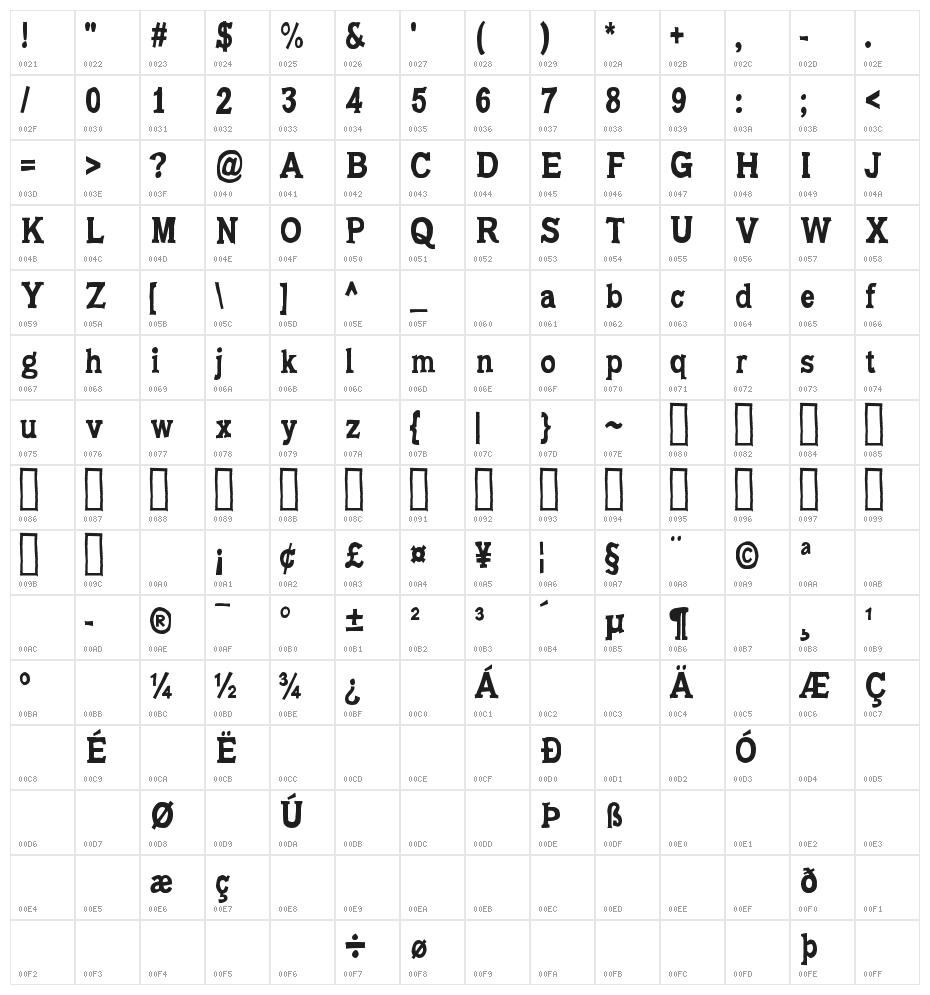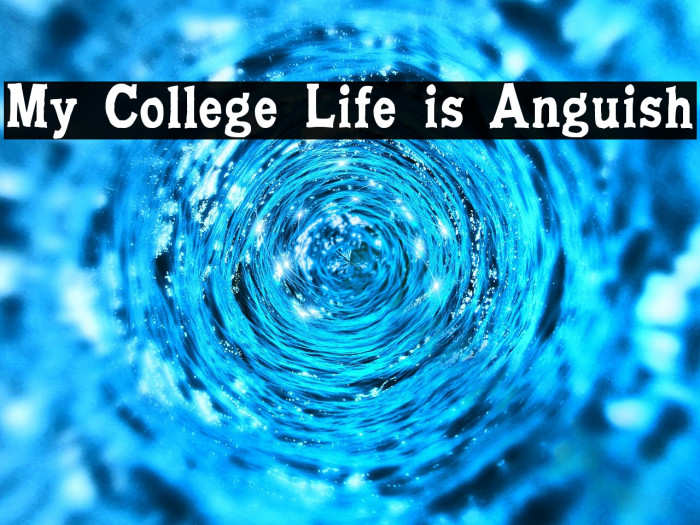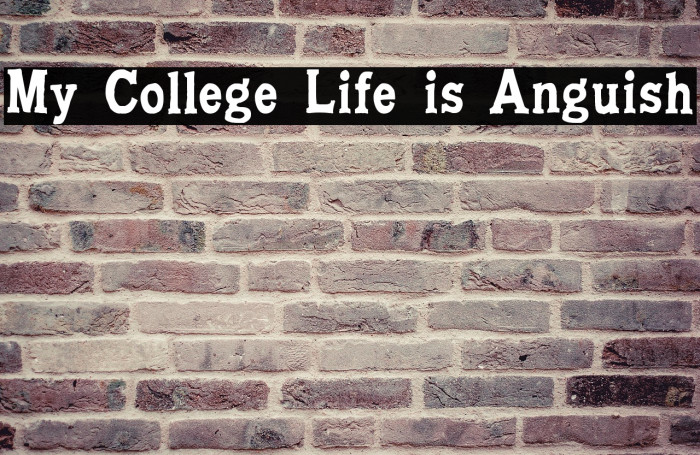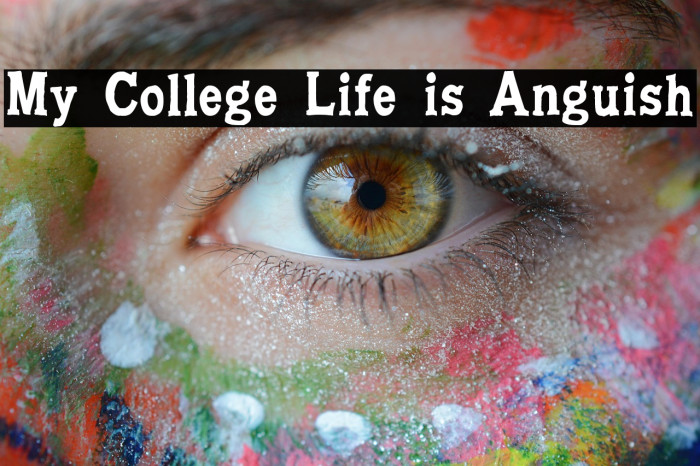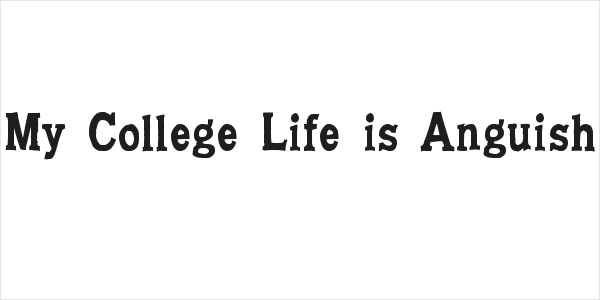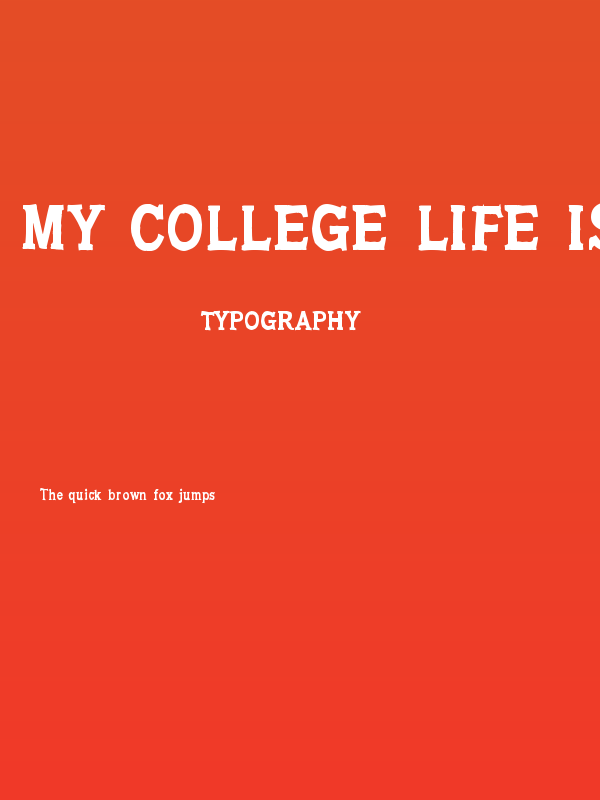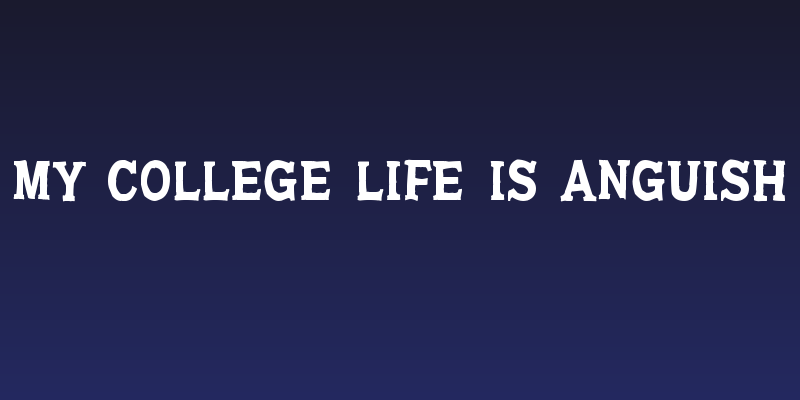
My College Life is Anguish Font
My College Life is Anguish Description
This font features a bold and rugged style, characterized by its thick, uneven strokes and slightly distressed appearance. The uppercase letters are strong and commanding, while the lowercase letters maintain a consistent weight, adding to the font's robust nature. The numerals are equally bold, ensuring visibility and impact. Special characters are designed with the same rugged texture, making them stand out. This font's unique style gives it a handcrafted feel, suitable for projects that require a touch of authenticity and boldness.
| Proposed Projects | Ideal for posters, logos, branding, and any design needing a bold, authentic touch. |